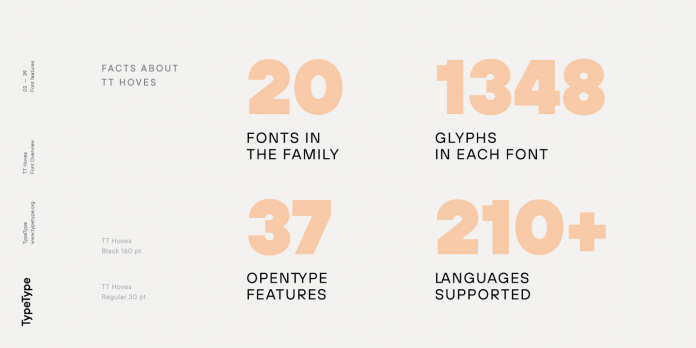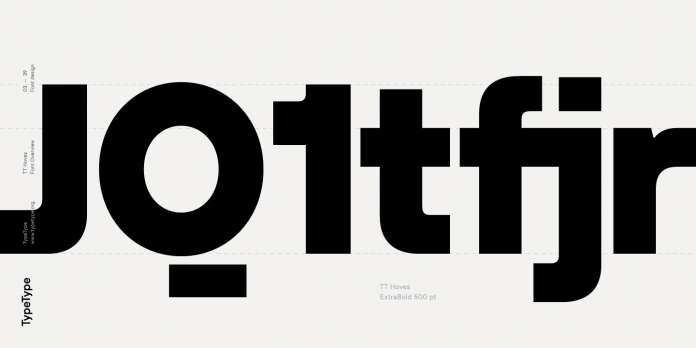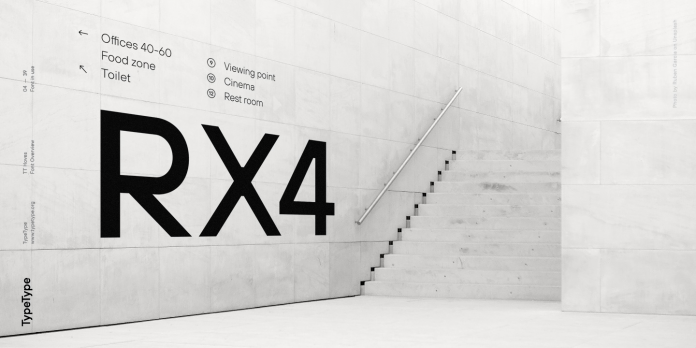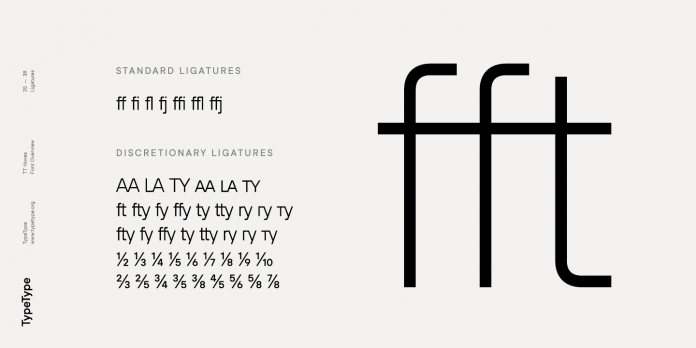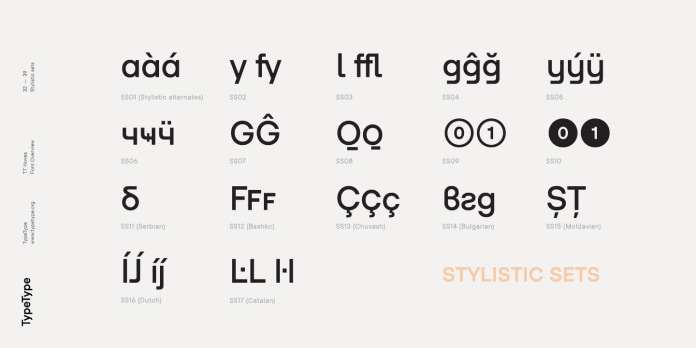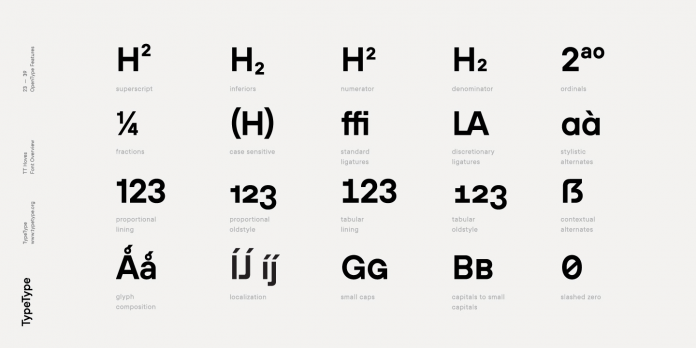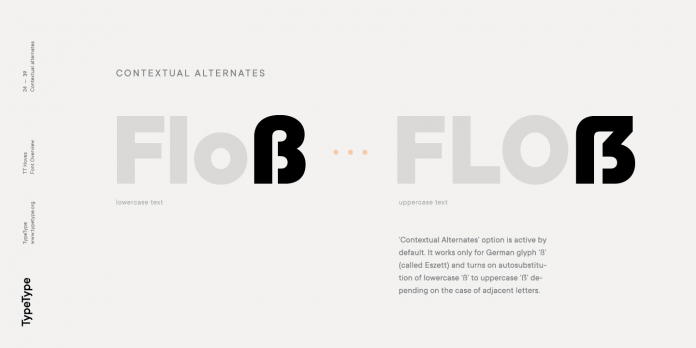
TT Hoves, a geometric sans serif font family with tech style.
After the releases of TT Norms and TT Commons, TT Hoves completes a trilogy of typefaces dedicated to modern sans serif styles. Unlike the first two typefaces, TT Hoves has a more distinct appearance, but without being too bright. The designers Ivan Gladkikh, Pavel Emelyanov, and the entire TypeType team wanted to create a sans serif font family based on geometry and recognizable patterns perfectly suited for architecture, design, industry, science, astronomy, drawing, high tech, research, space, statistics, etc. The vertical and horizontal strokes clearly predominate in the design of the typeface. In addition, TT Hoves offers sharp turns in letters like ‘f’, ‘t’, ‘J’, ‘r’, and ‘j’. The shape of the internal junctions of diagonal 2-point strokes (A, W, M, N, V, X) adds a square and technical touch to the overall style.
The TT Hoves font family consists of 20 fonts including 10 weights ranging from Hairline to Black plus 10 corresponding Italics. Each style includes 1348 glyphs. TT Hoves supports many languages including the Latin and Cyrillic alphabet. The family is also equipped with lots of OpenType features, stylistic alternates, ligatures, and much more. To learn more, just click on the following links or have a look at the images below.